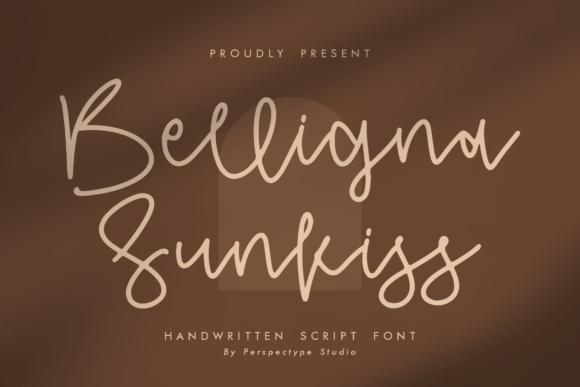
Belligna Sunkiss Font: Elevate Your Designs with Elegant Handwritten Script
Are you a designer or crafter looking for a beautiful and versatile font to elevate your projects? Look no further than the Belligna Sunkiss Font. This stunning handwritten script font is perfect for a wide range of applications, from logos and branding projects to homeware designs, product packaging, and more.
What is Belligna Sunkiss Font?
Belligna Sunkiss is a carefully crafted handwritten script font that exudes elegance and sophistication. Its unique and flowing style makes it perfect for adding a touch of personality to any design project. Whether you’re looking to create a logo, branding materials, or simply want to add some flair to your craft projects, Belligna Sunkiss is the perfect choice.
What Can I Use Belligna Sunkiss Font For?
Why Choose Belligna Sunkiss Font?
- Elegant and sophisticated: The Belligna Sunkiss Font is carefully crafted to exude elegance and sophistication, making it perfect for high-end designs.
- Unique: The Belligna Sunkiss Font has a unique and flowing style that will set your designs apart from the rest.
Tips for Using Belligna Sunkiss Font
- Experiment with different sizes: The Belligna Sunkiss Font looks great in a variety of sizes, from small and delicate to large and bold.
- Use for headlines and titles: The Belligna Sunkiss Font is perfect for headlines and titles, where its elegant and sophisticated style can really shine.
In conclusion, the Belligna Sunkiss Font is a beautiful and versatile handwritten script font that is perfect for a wide range of design projects. Its elegant and sophisticated style makes it ideal for high-end designs, while its unique and flowing style ensures that your projects will stand out from the rest. Whether you’re a designer or crafter, the Belligna Sunkiss Font is a great choice for adding a touch of personality to your work.